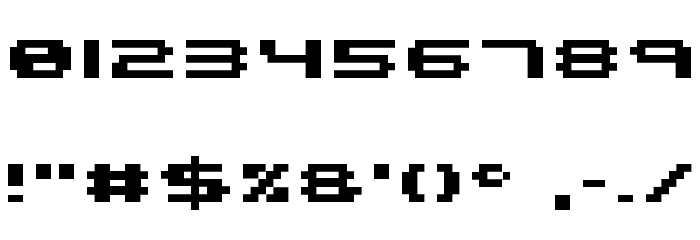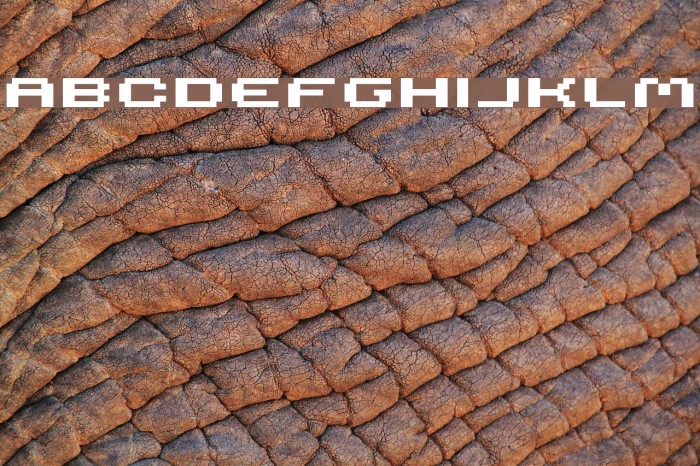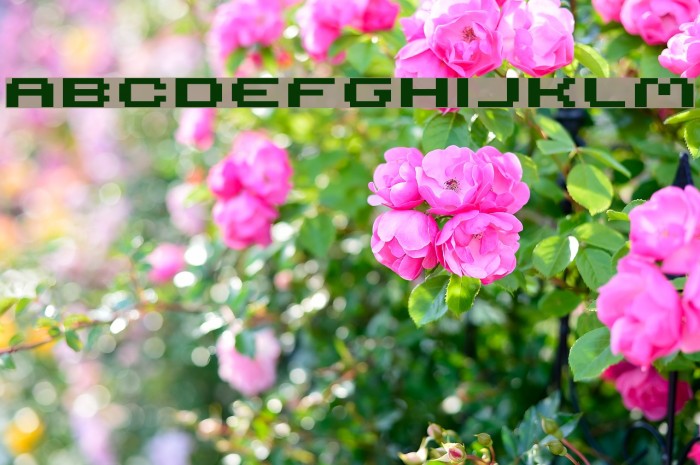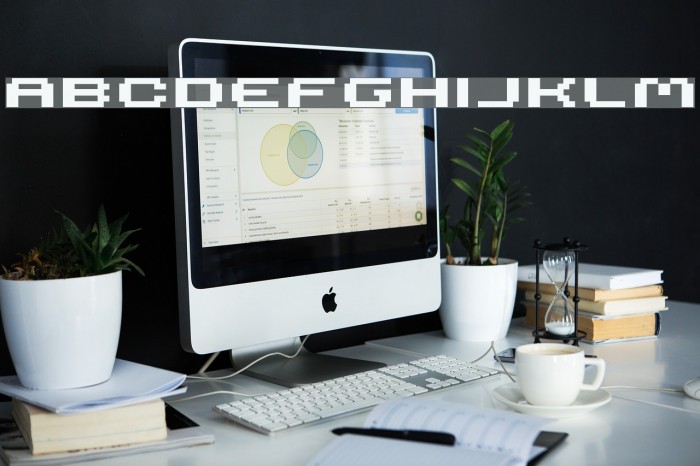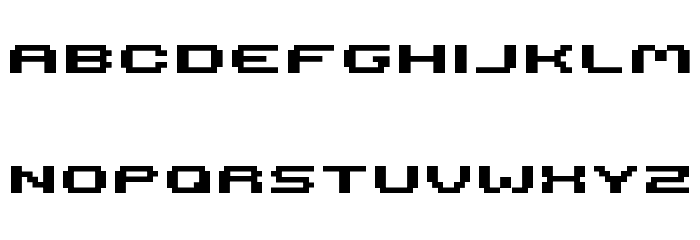
seriousr4b Font
seriousr4b Description
This font features a bold, pixelated design reminiscent of early digital displays and retro video games. The characters are uniformly constructed with a blocky, geometric style that emphasizes clarity and simplicity. Each letter and number is distinct, with sharp edges and a consistent height, making it highly legible even at smaller sizes. The font's uniformity and grid-like appearance give it a structured and mechanical feel, suitable for conveying a sense of nostalgia or technological themes. The special characters maintain the same pixelated aesthetic, ensuring a cohesive look across all glyphs.